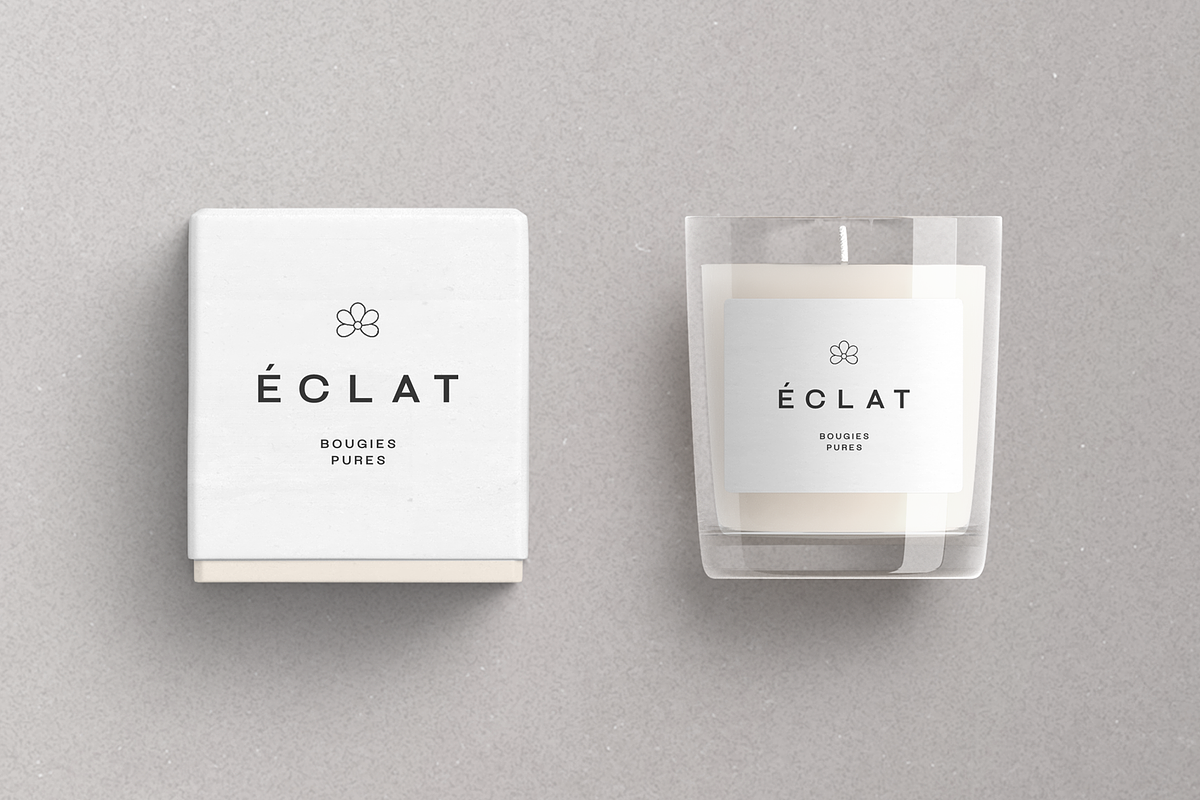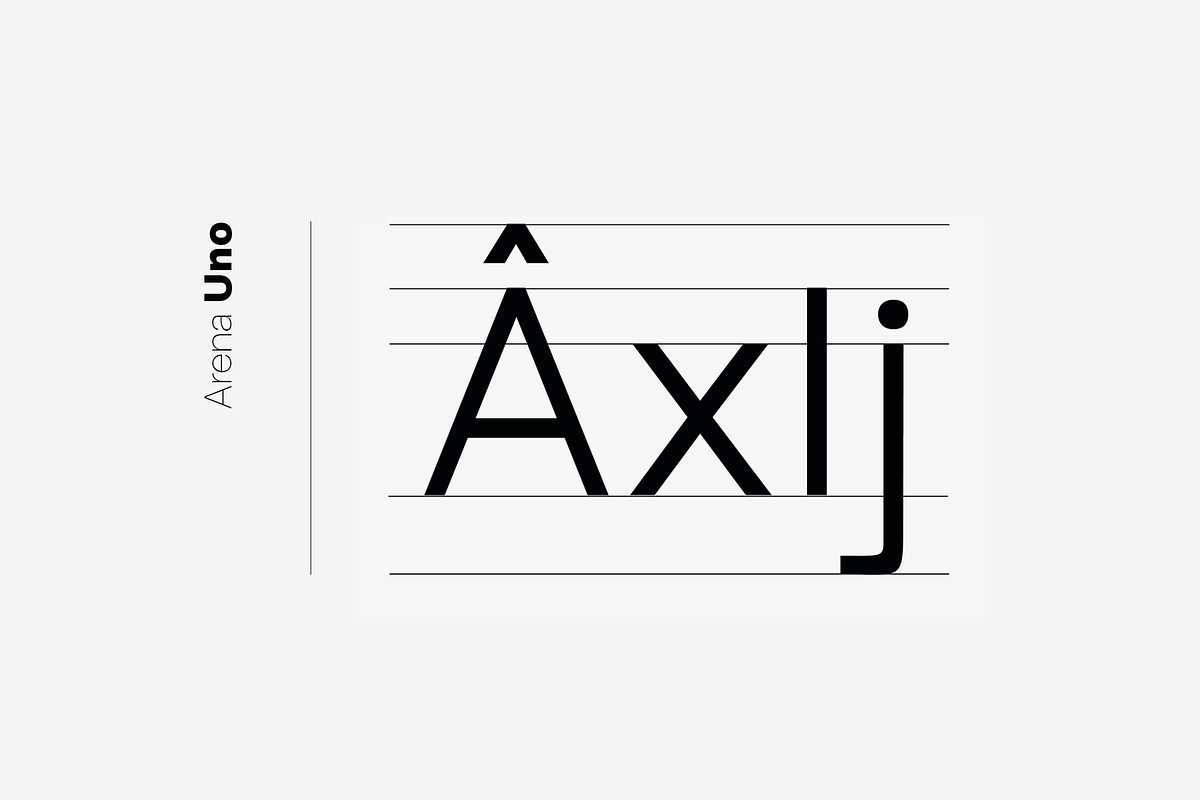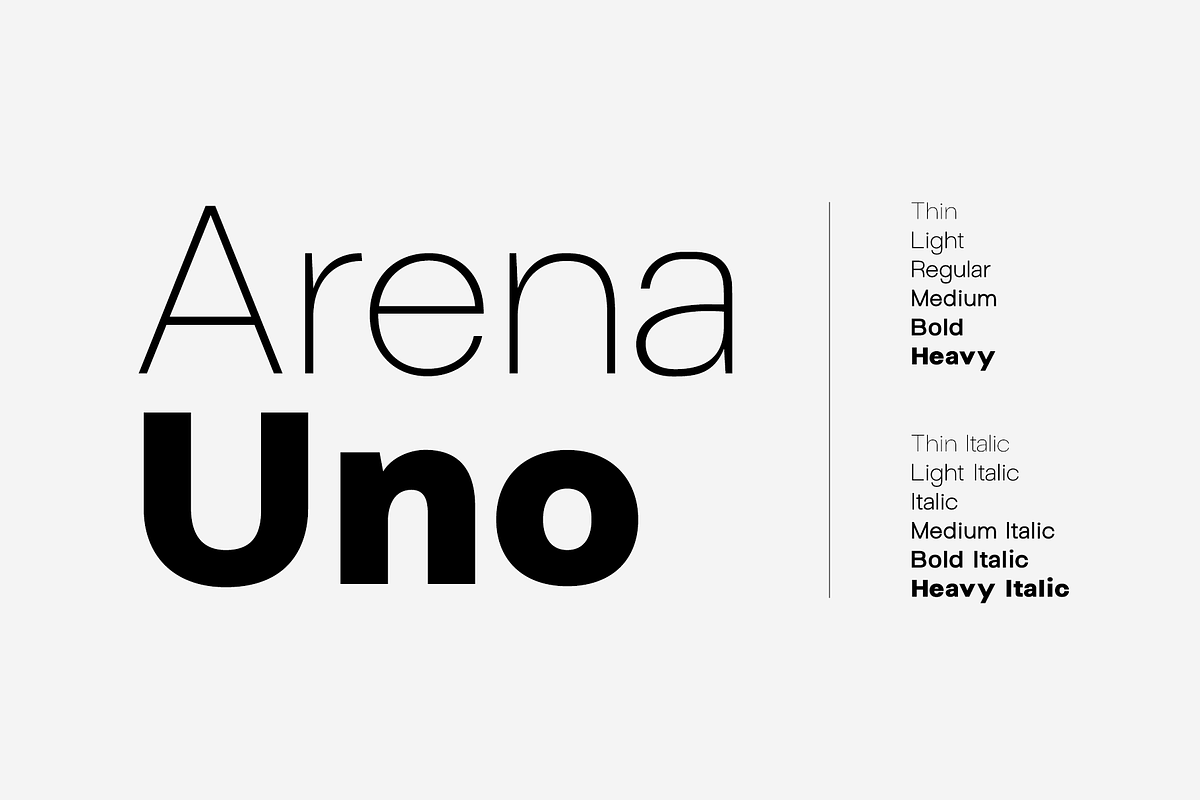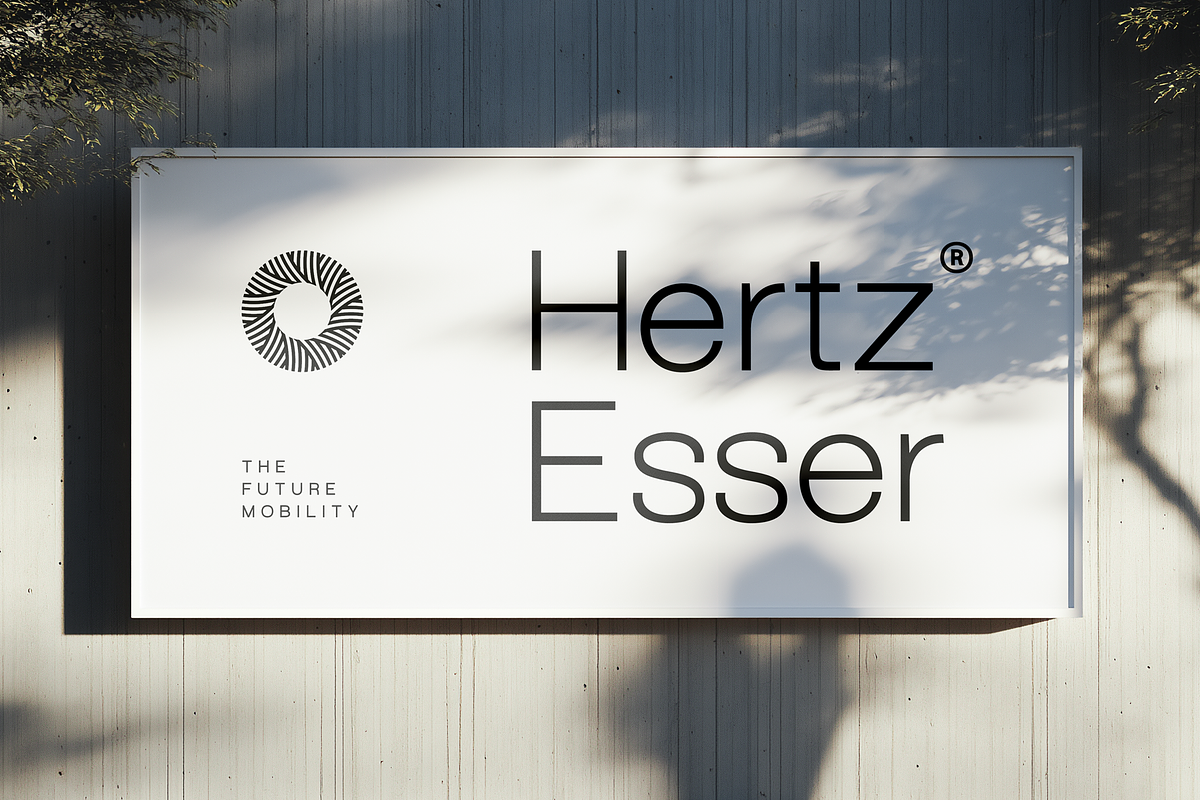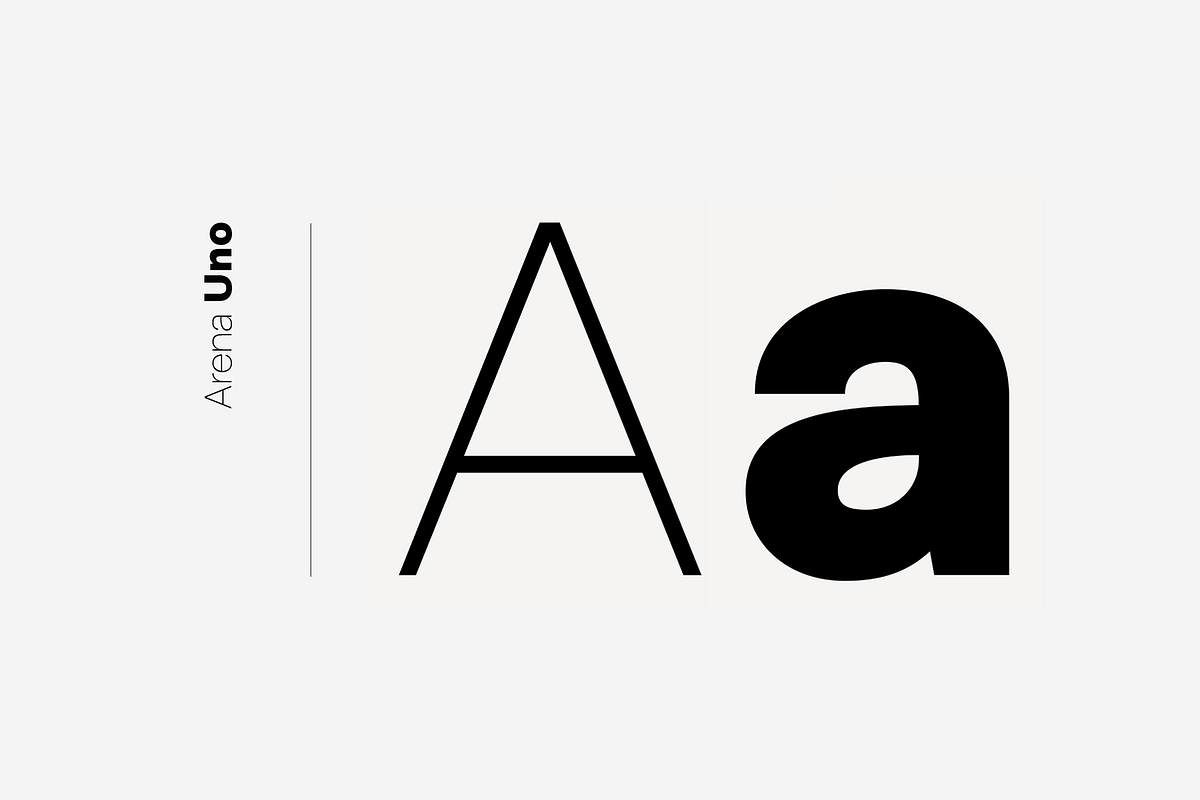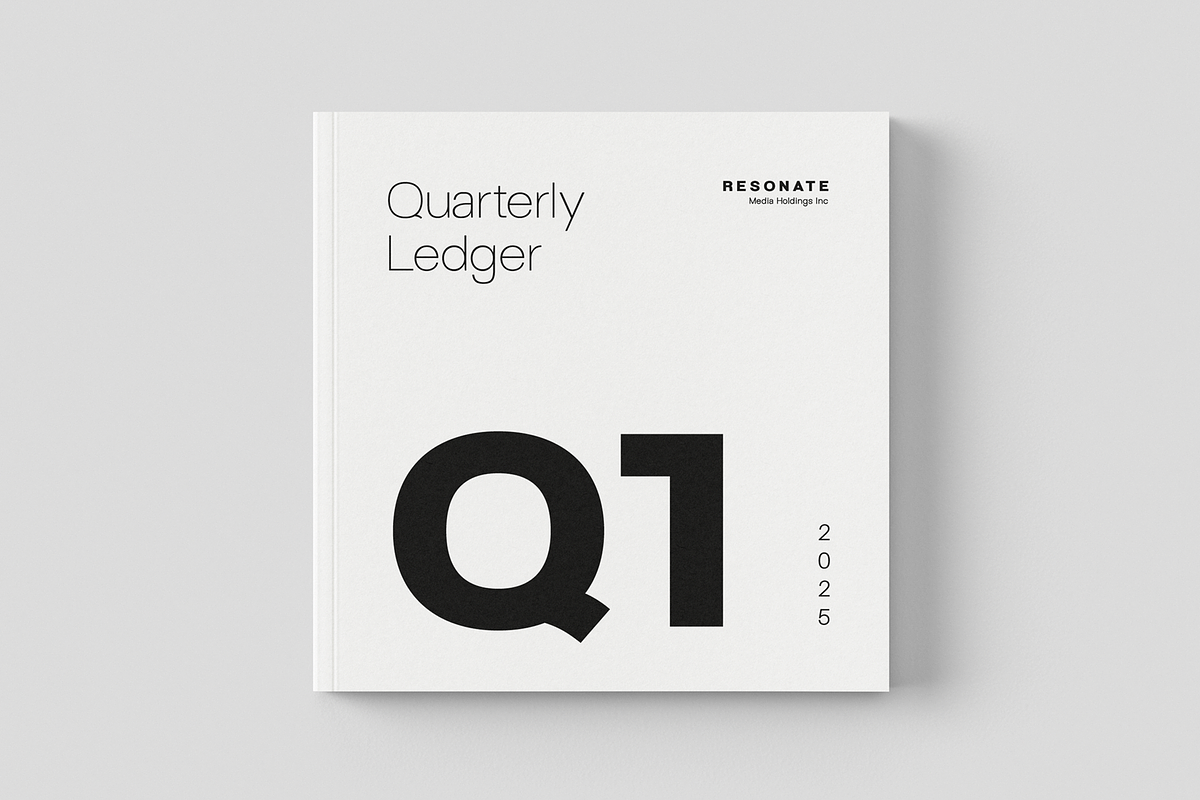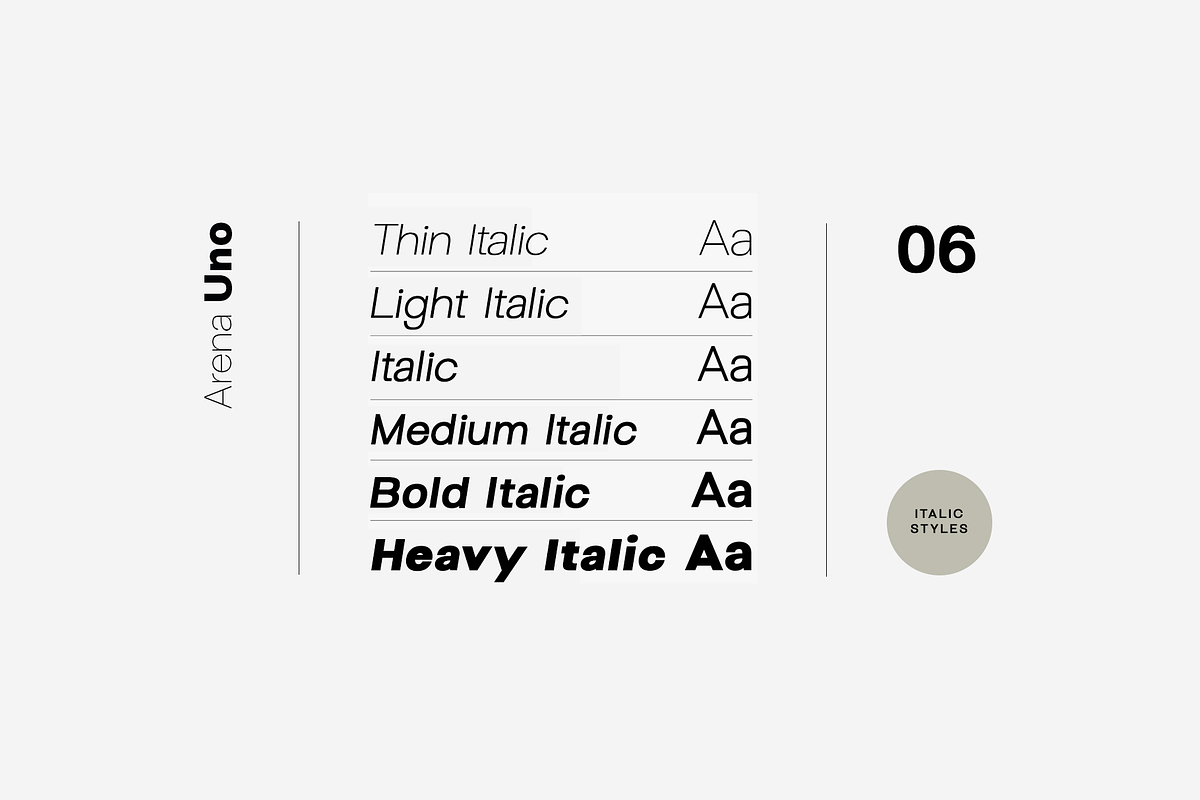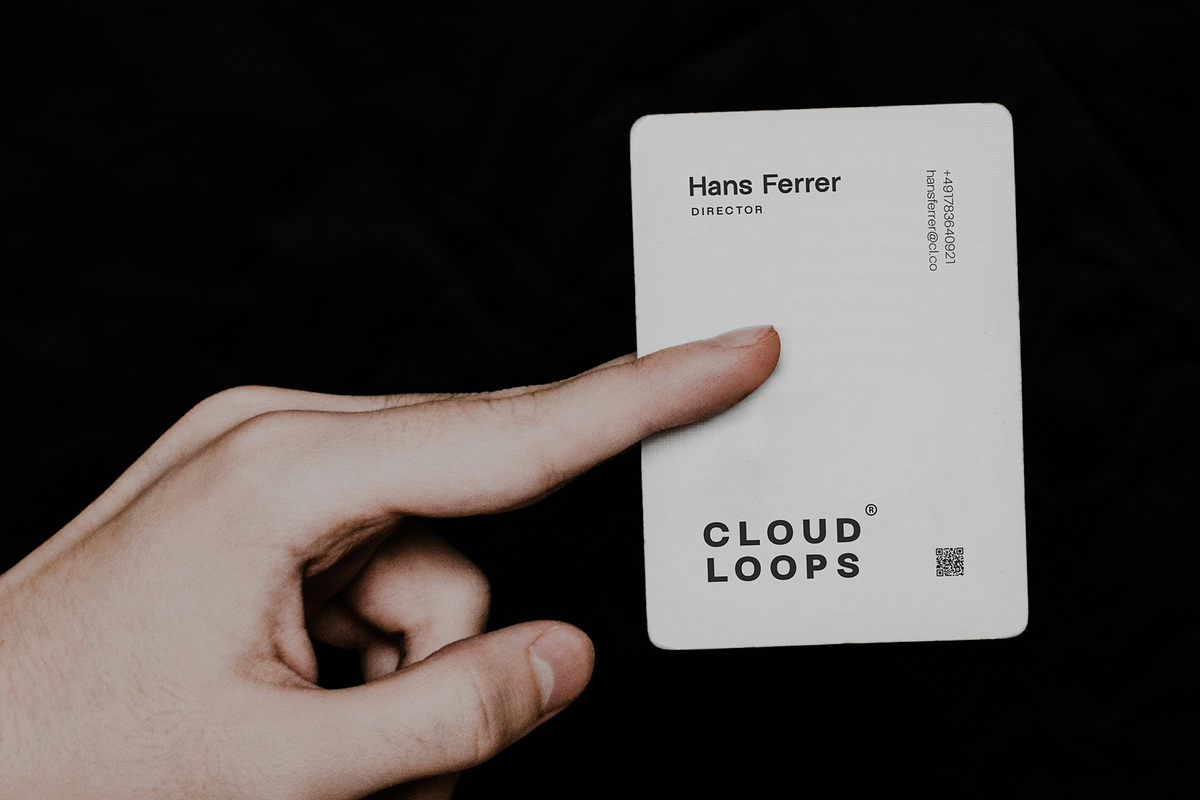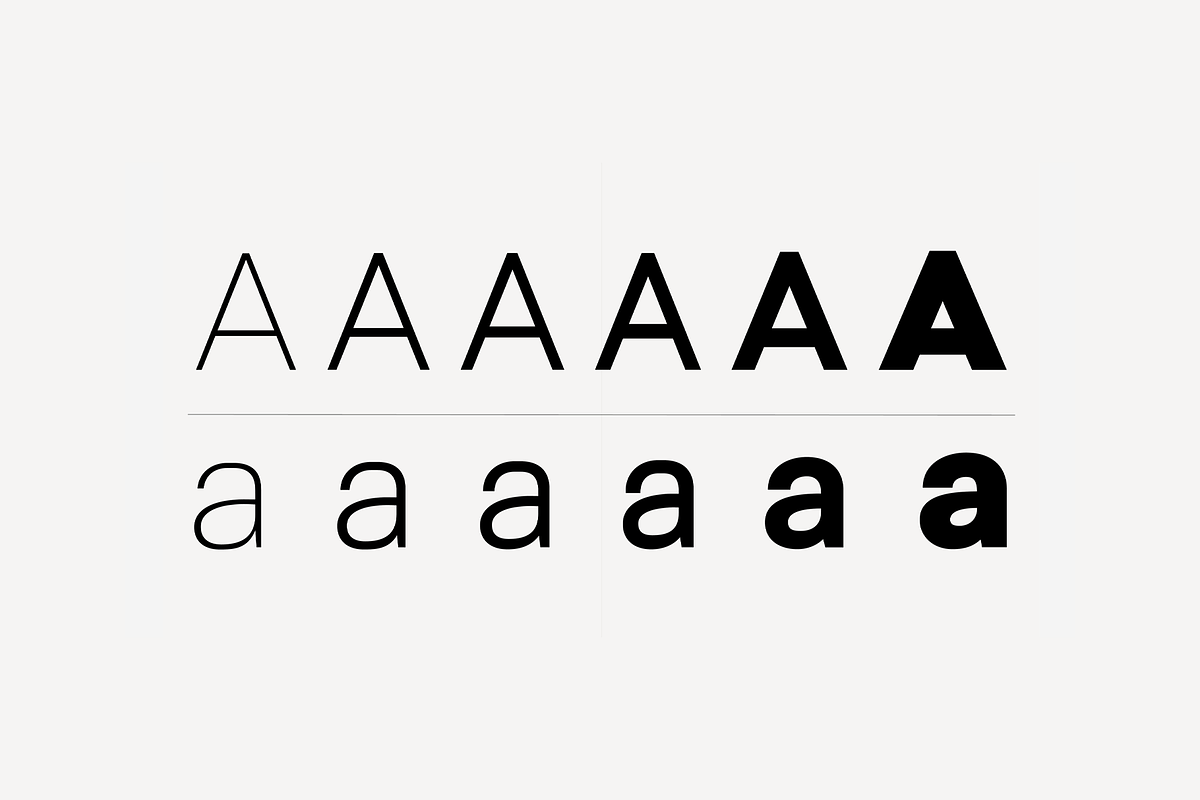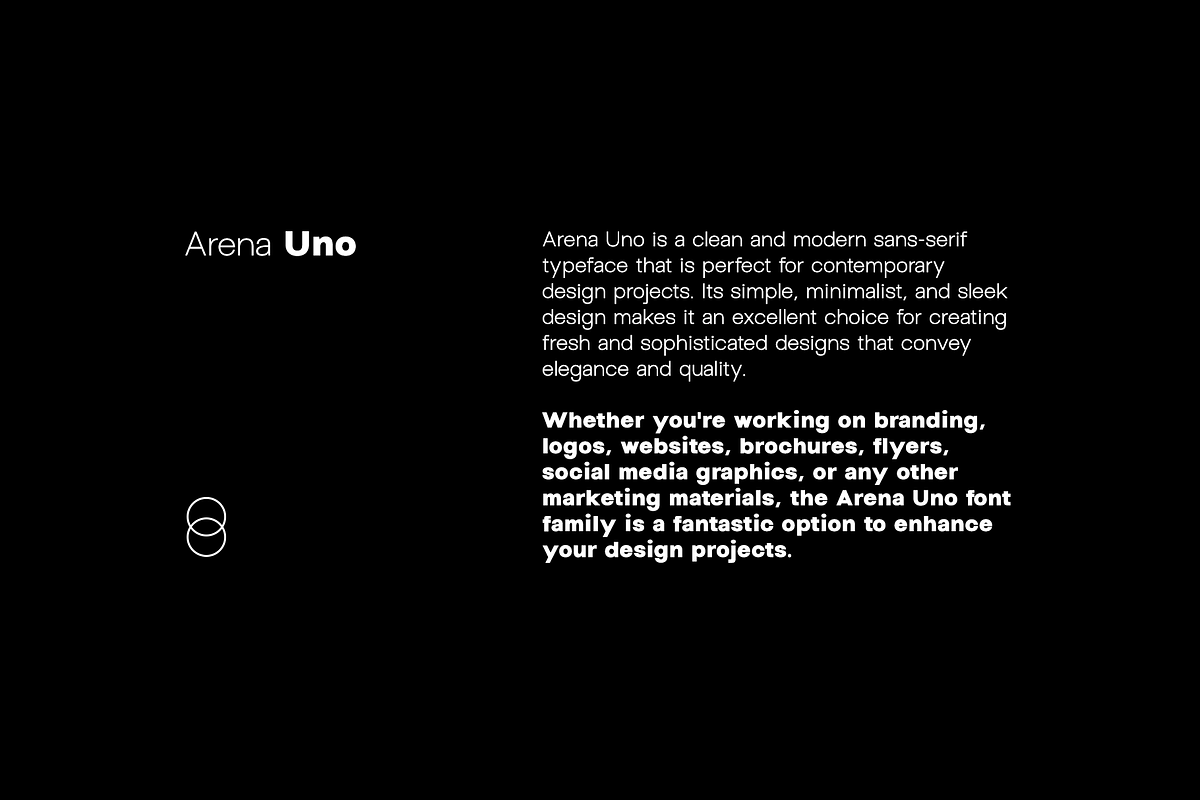
Arena Uno - Modern Font Family
ABOUT THE TYPEFACE:
Arena Uno is a clean and modern sans-serif typeface that is perfect for contemporary design projects. It is the fifth typeface released in our Uno class font families, known for being one of the most advanced and feature-rich fonts in our portfolio.
Arena Uno offers 12 fonts, including 6 weights of upright styles and their matching italics. It has been crafted with powerful OpenType features, providing an extensive character set with 357 glyphs that support over 100 languages. This typeface is well-suited for graphic design, display, branding, and marketing applications. It performs exceptionally well for web, social media, digital marketing, signage, corporate materials, and editorial design. With additional letter spacing, Arena Uno becomes the ideal choice for minimal headlines and logotypes, as demonstrated in the attached promotional designs.
The Arena Uno font family includes 16 fonts in total, with six upright weights and Italic equivalents of all six weights as follows:
Thin
Thin Italic
Light
Light Italic
Italic
Medium
Medium Italic
Bold
Bold Italic
Heavy
Heavy Italic
Handcrafted and designed with powerful OpenType features in mind, each weight includes extended language support with Western European, Central European, and South Eastern European sets. A total of 357 glyphs are available.